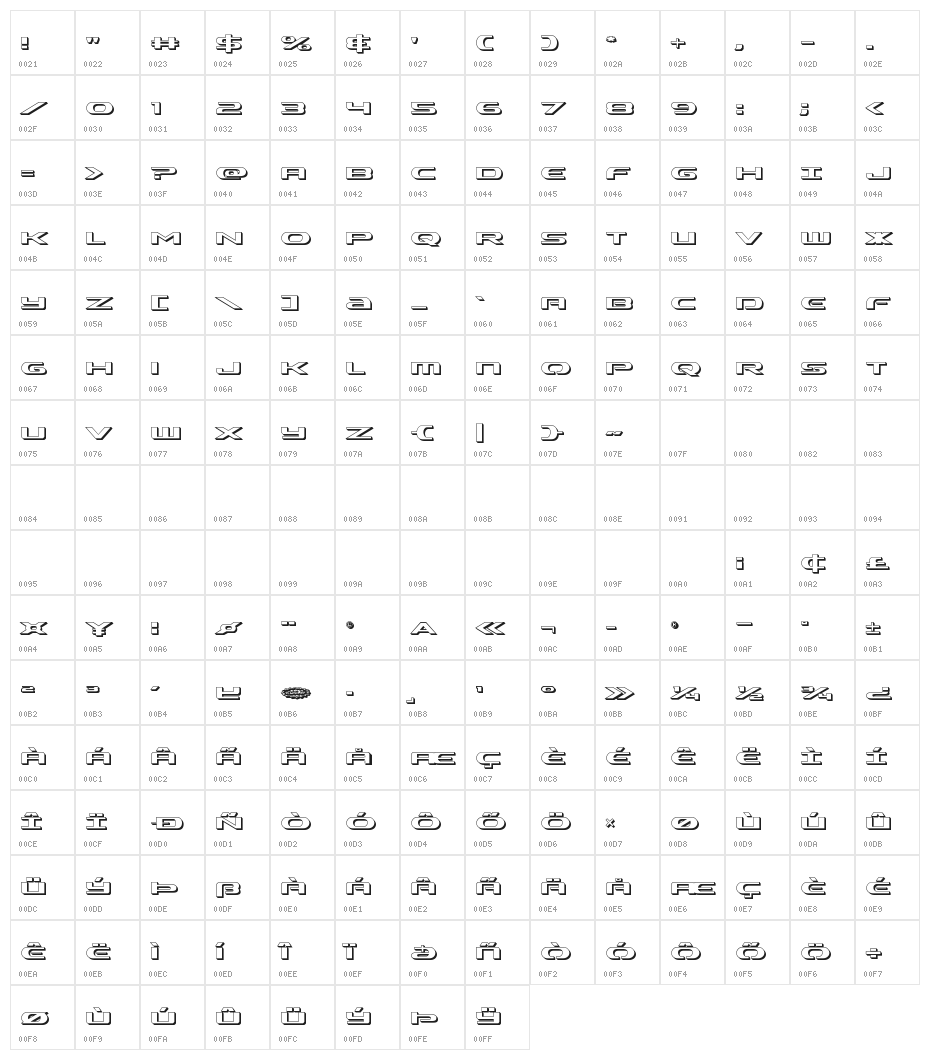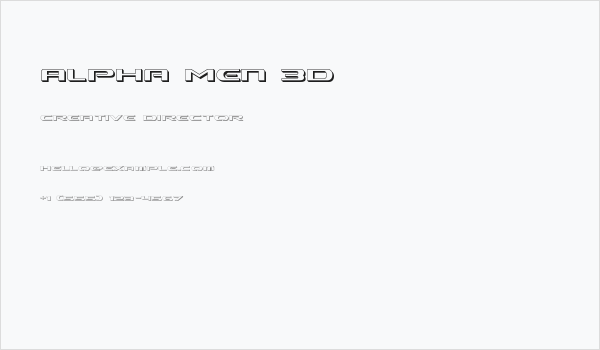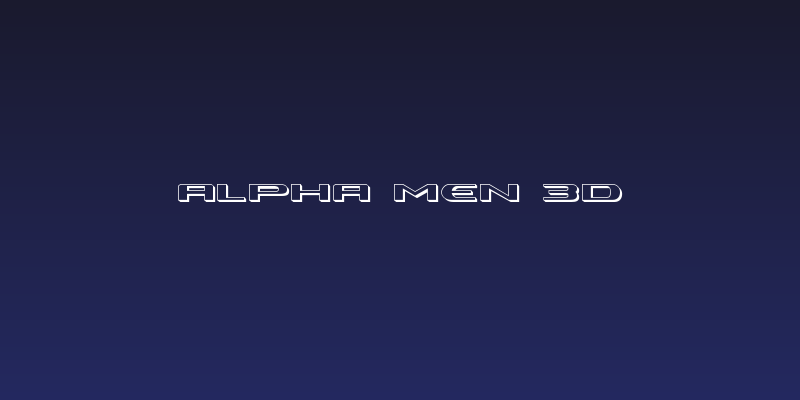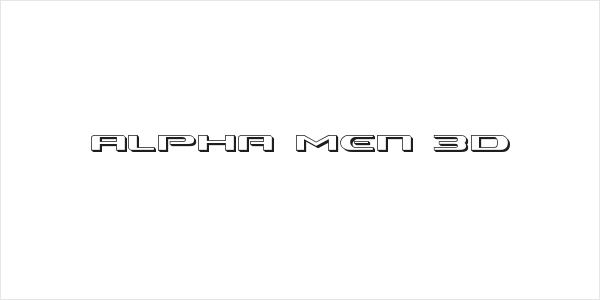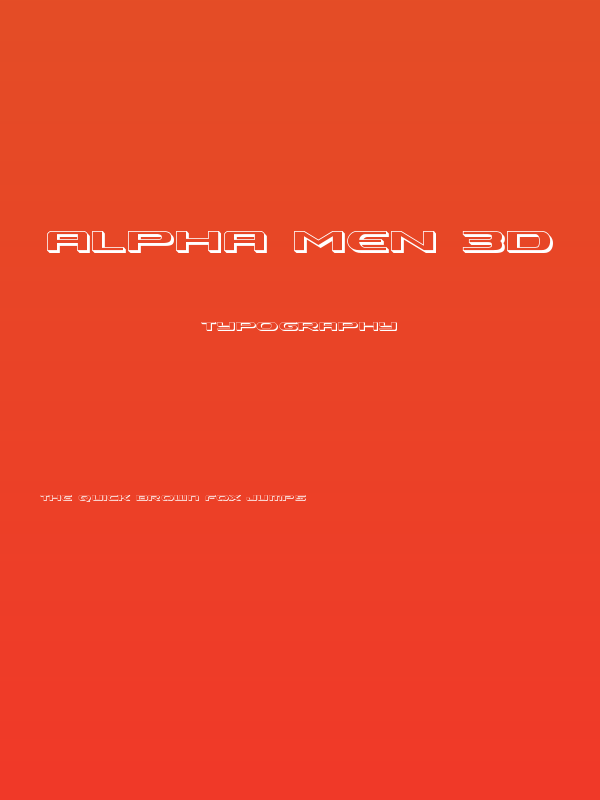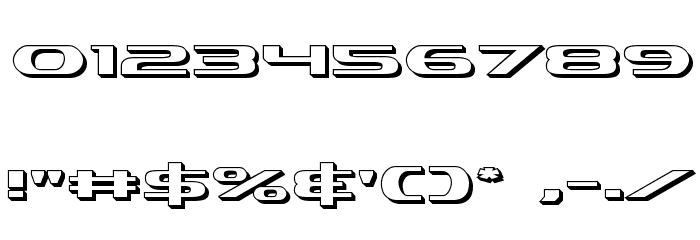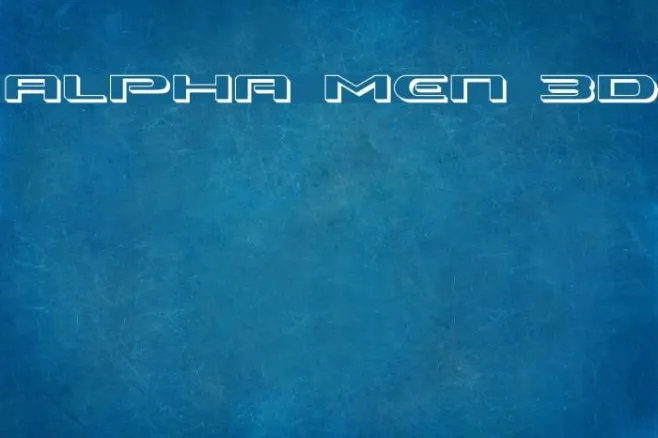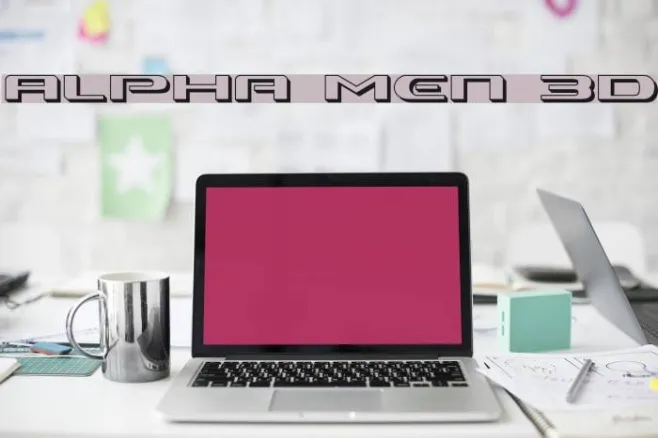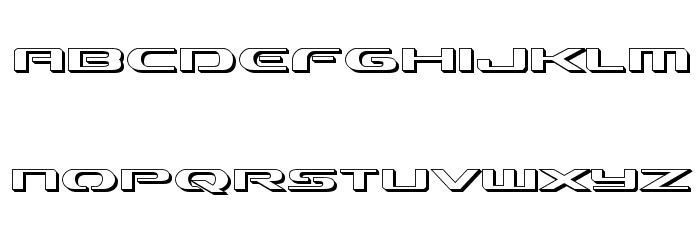
Alpha Men 3D Font
Alpha Men 3D Description
This font features a bold, three-dimensional design with a futuristic and geometric aesthetic. The characters are outlined with a shadow effect that gives them a sense of depth and dimension. The uppercase and lowercase letters maintain a consistent style, with sharp angles and clean lines that create a modern and tech-inspired look. The numbers and special characters follow the same design principles, ensuring uniformity across all glyphs. This font is ideal for projects that require a standout, eye-catching typeface with a strong visual impact.